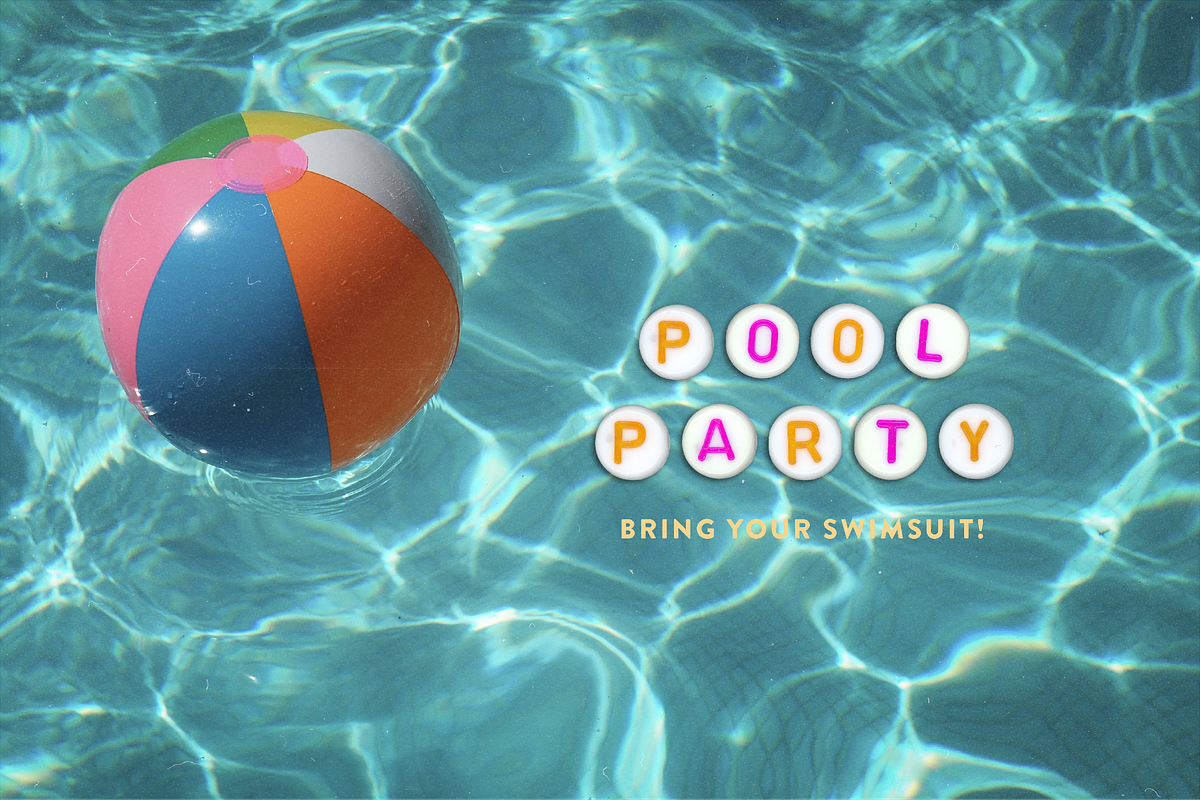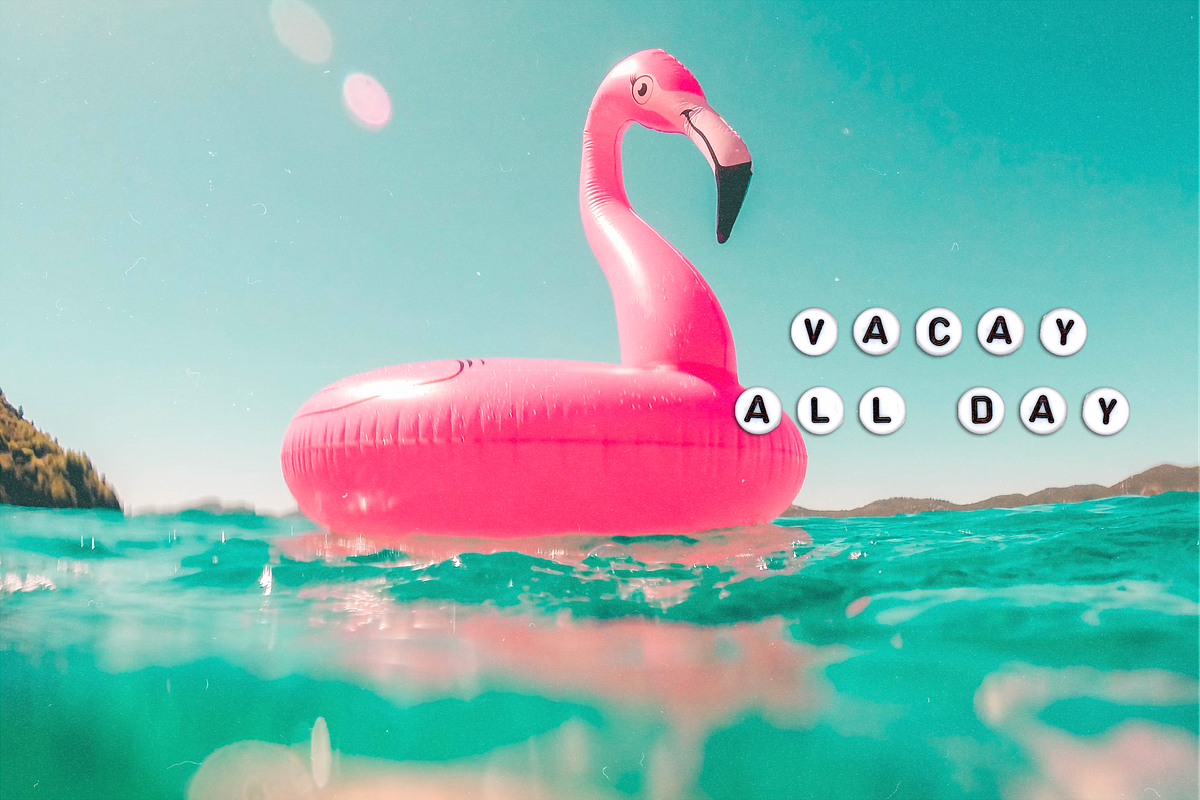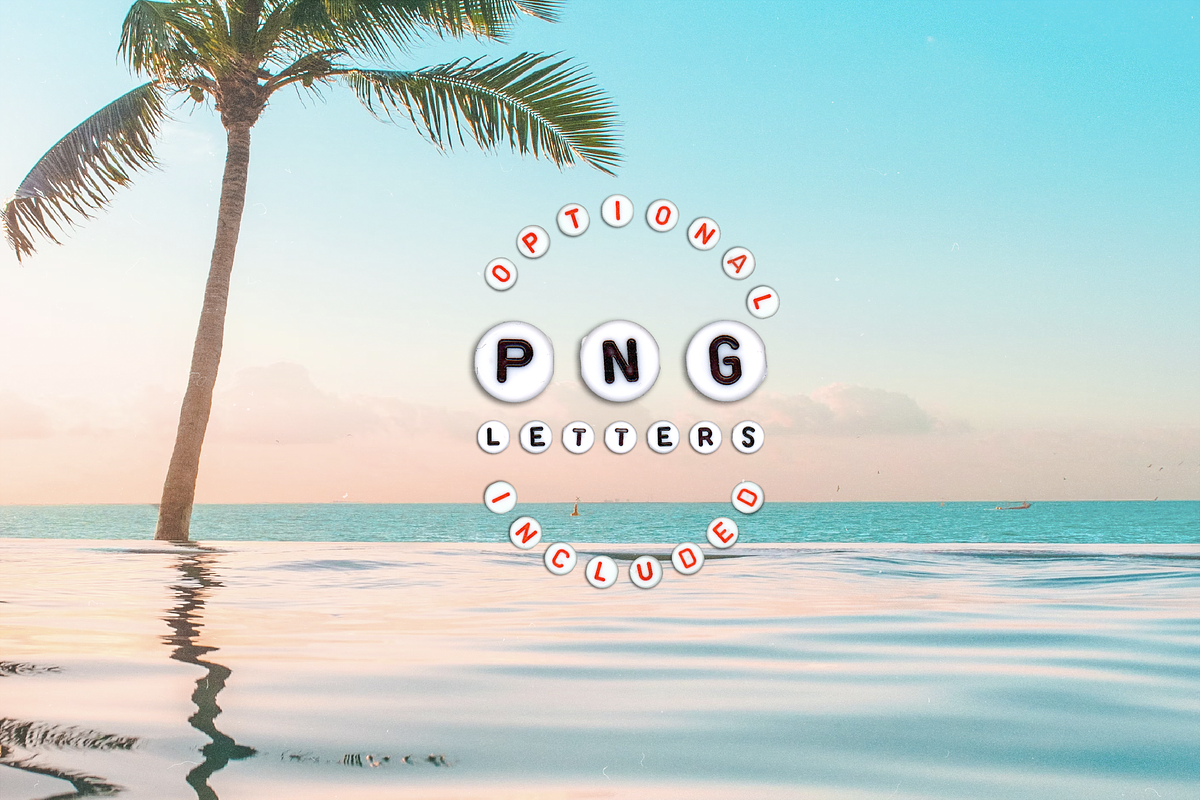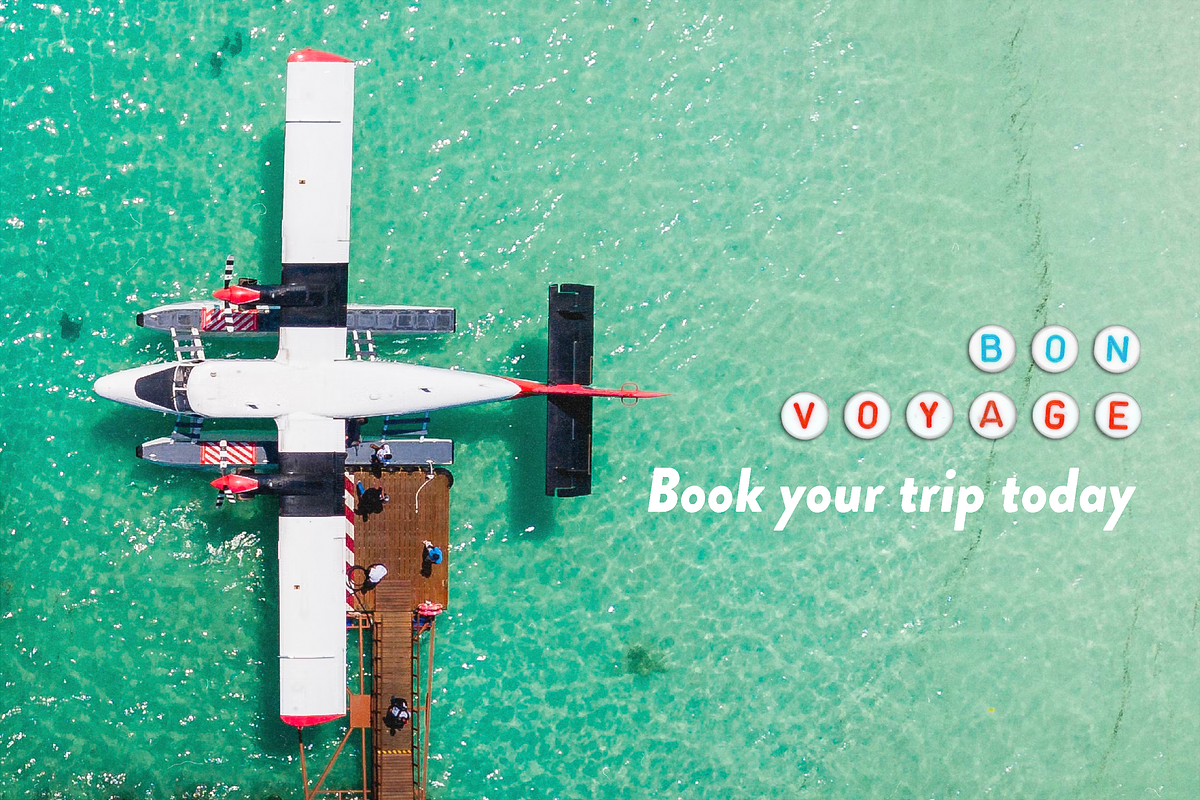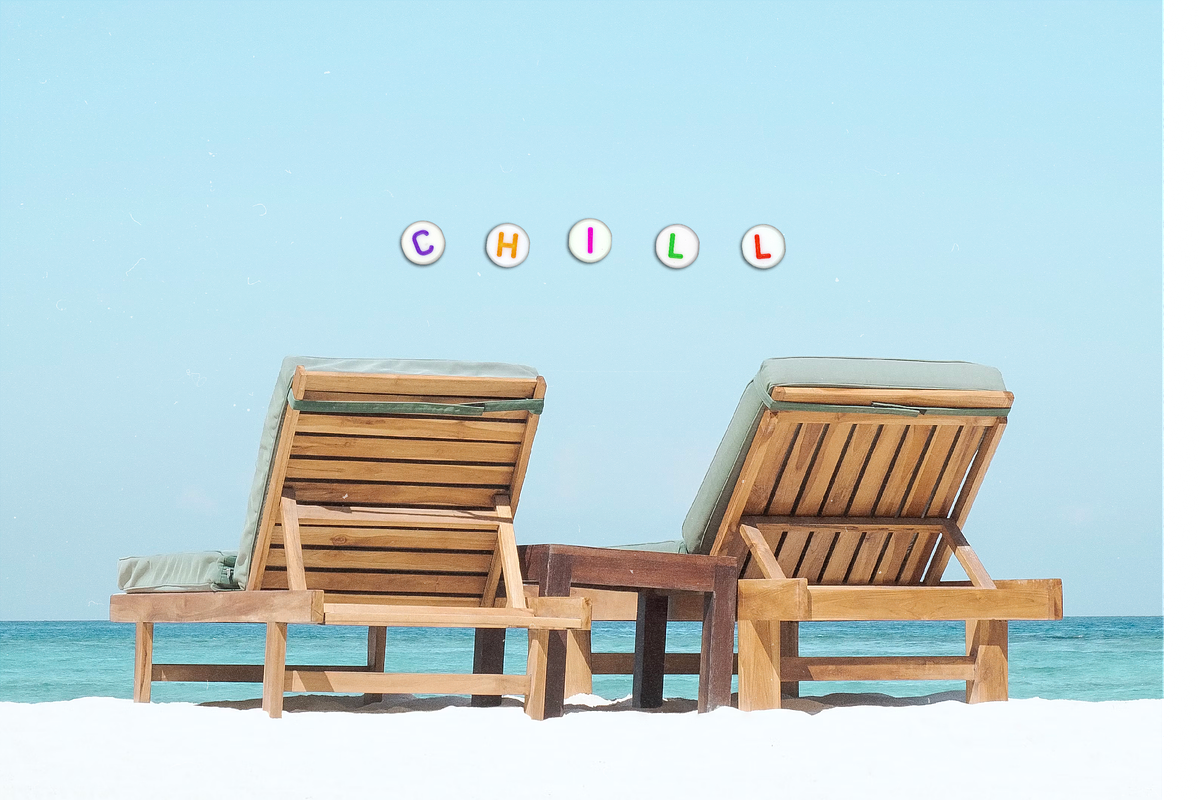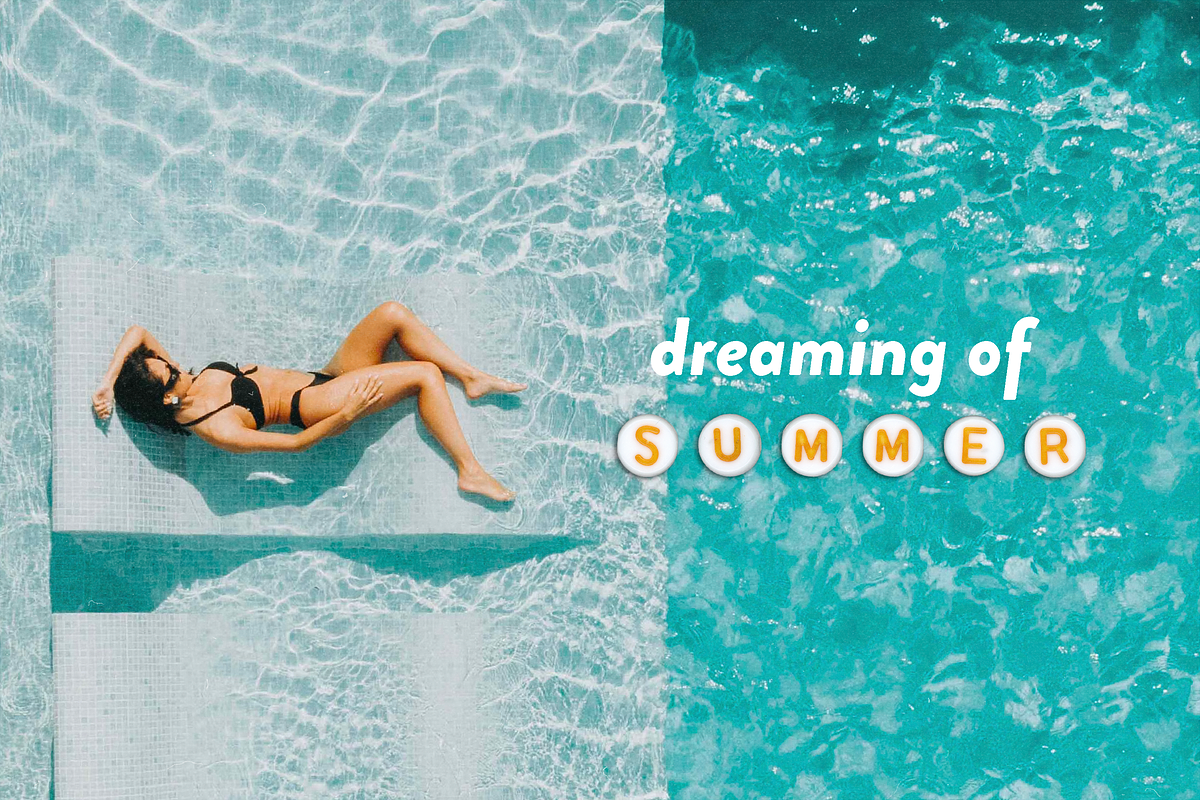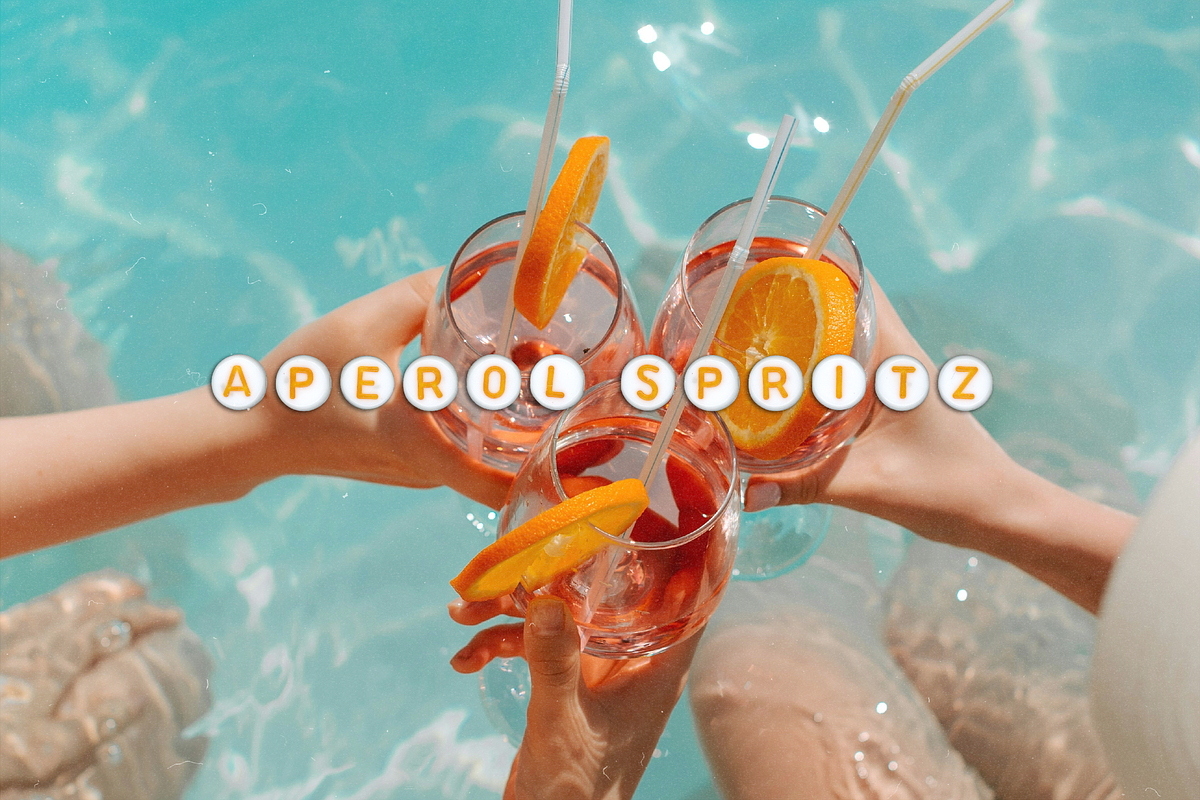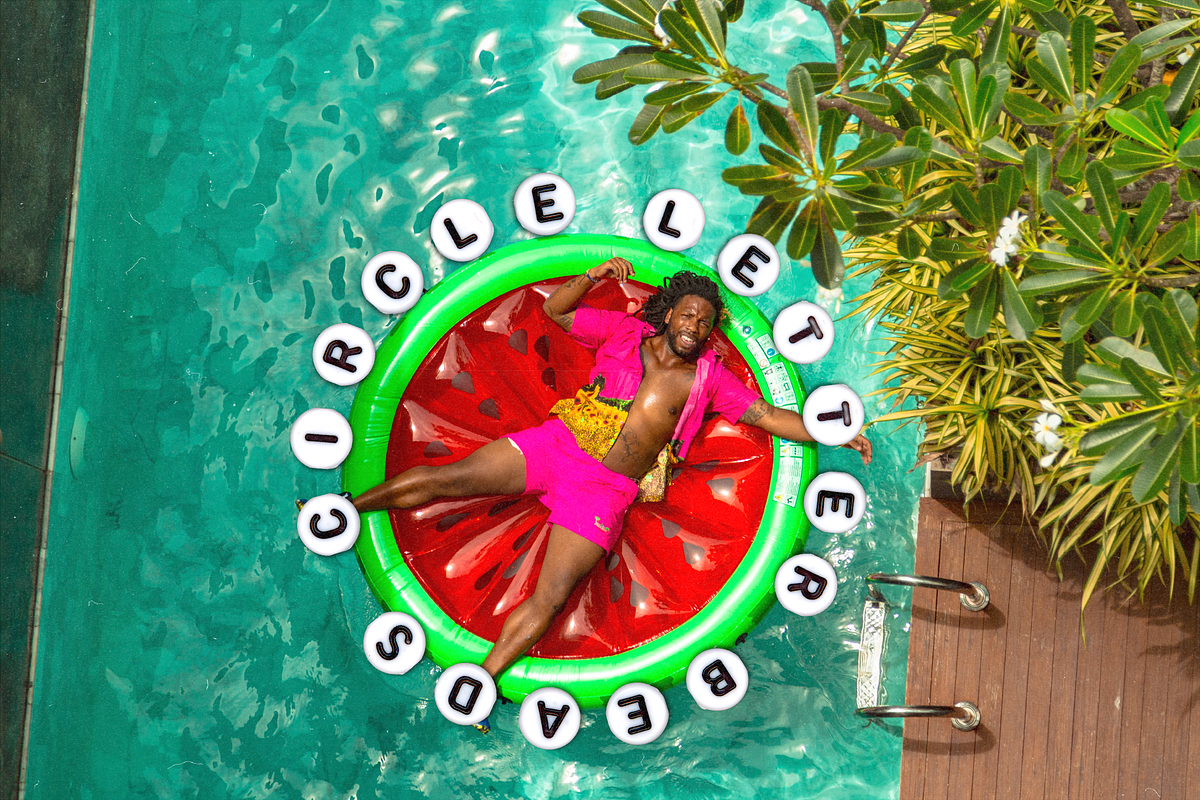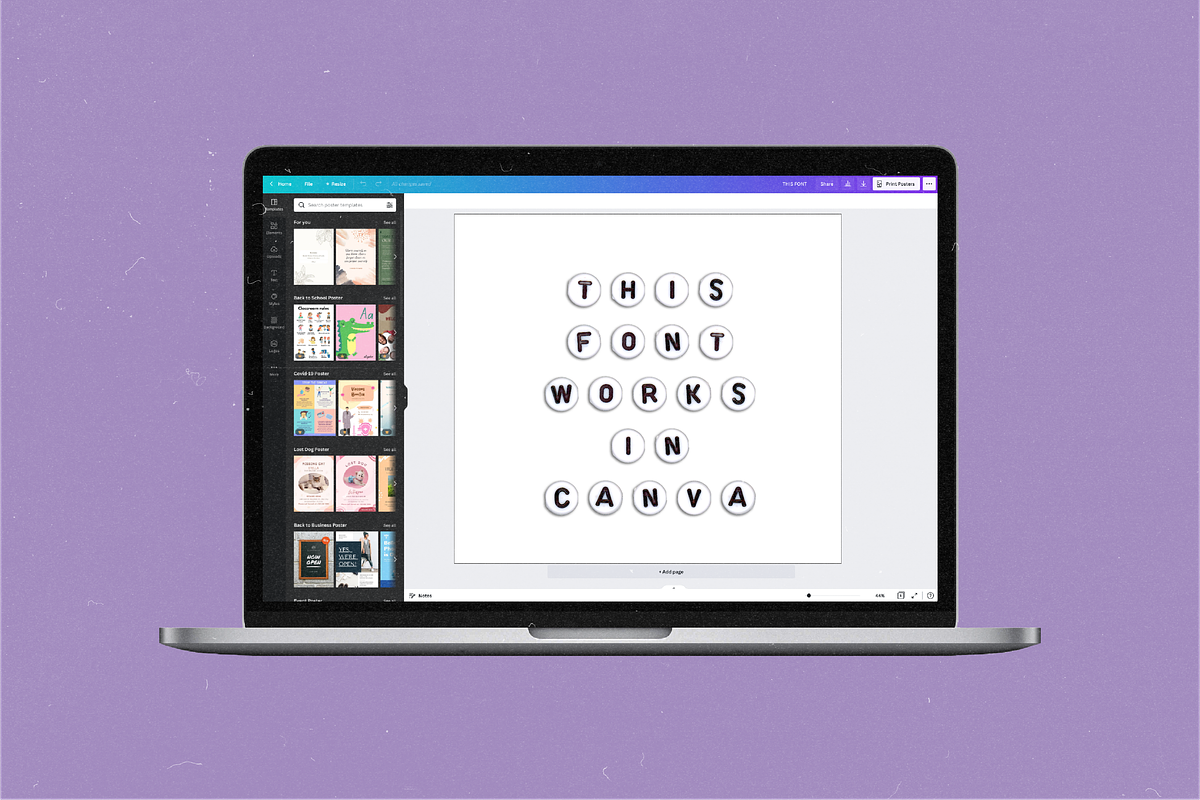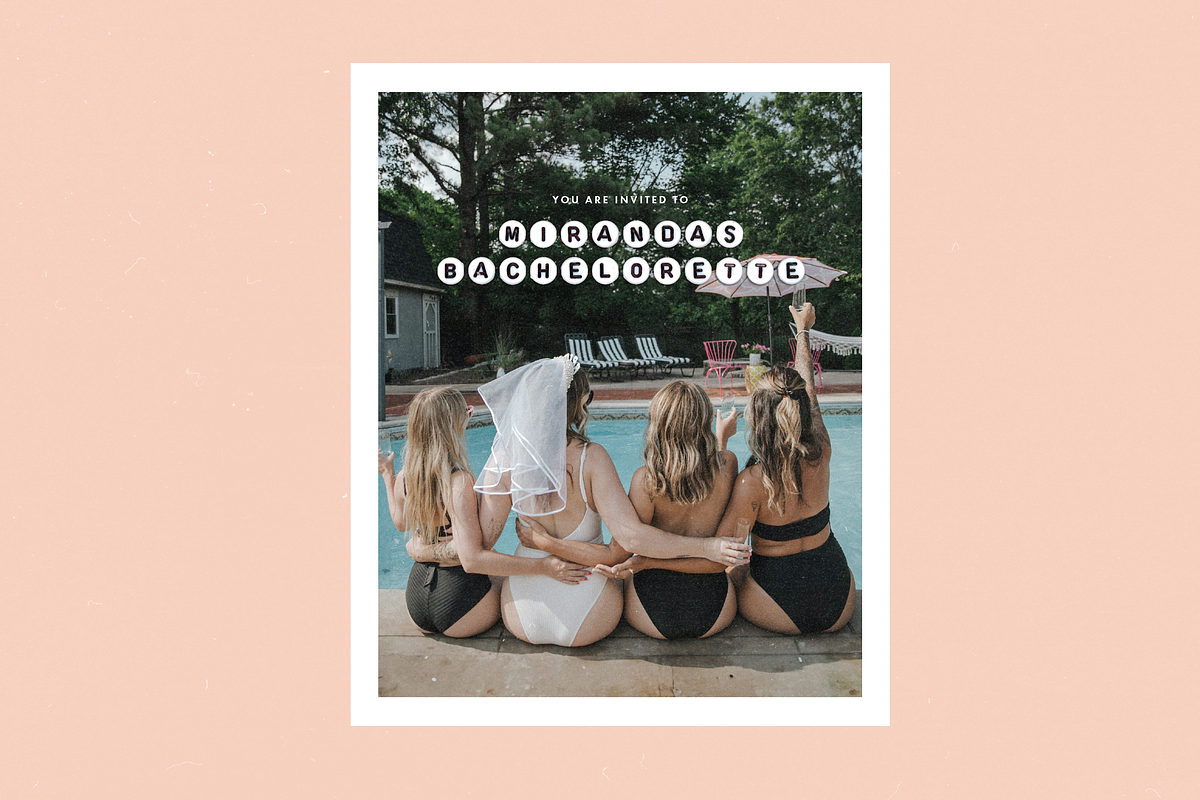
Circle Letter Beads - Alphabet Font
Add some realistic flair to your projects, make your Instagram posts more dynamic & create some fun new ways to express yourself with this Alphabet Letter Font Set! Circle Letter Beads is a handmade Alphabet Letter Bead Open Type Font that you can install on your computer or upload to Canva. We've scanned each individual letter in as well as added shadows to give it a 3D effect. This will add dazzling display text to your Instagram posts, posters, book covers, packaging & more!
If you want to customize this font even further, use the PNG Letterbeads to add your own custom shadows. This makes it so that you are able to adjust the angle of the beads or put them in an arc or different shapes.
poor quality, didn't even remove bits of fuzz or hair in the scans of the beads. the L and S have marks or bubbles, it's just weird, lazy work. save your money
Thanks for taking the time to share your feedback, though we’re truly sorry this product didn’t land the way you hoped. This font was created by scanning in real bead letters to capture the tactile, handmade charm of the medium. Our goal was never to deliver a polished, hyper-clean digital typeface, but rather something that felt real fuzzy threads and all. Since it was designed for small-scale use like the examples in the screenshots, those tiny details weren’t as visible during our creation process, but we understand they may be more noticeable when scaled up. We’re genuinely sorry it missed the mark for your project. We appreciate you bringing this to our attention and it helps us clarify our product descriptions and continue to improve!